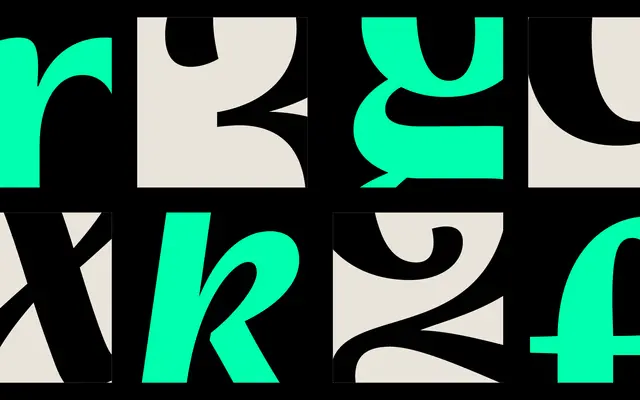
Evans
Zetafonts · Cosimo Lorenzo Pancini, Andrea Tartarelli · 2023
A semi-condensed old-style text family by Zetafonts, named after photographer Walker Evans and designed to maximise legibility in confined column widths.
Designed by Cosimo Lorenzo Pancini and Andrea Tartarelli, Evans pairs a classical old-style structure with a gently transitional axis and soft calligraphic stroke endings, resulting in a face that reads comfortably at small sizes in both print and digital contexts. The family runs to eight weights with true italics in both the standard and Narrow subfamilies, totalling 33 styles plus two variable fonts covering weight and width axes. Swash alternates, oldstyle figures and an Ornaments font extend its range for editorial, interface and identity work.
The designers explicitly describe Evans as a semi-condensed old-style with a slight transitional slanted axis, combining classical old-style proportions with soft calligraphic detail and a mildly transitional stress angle.